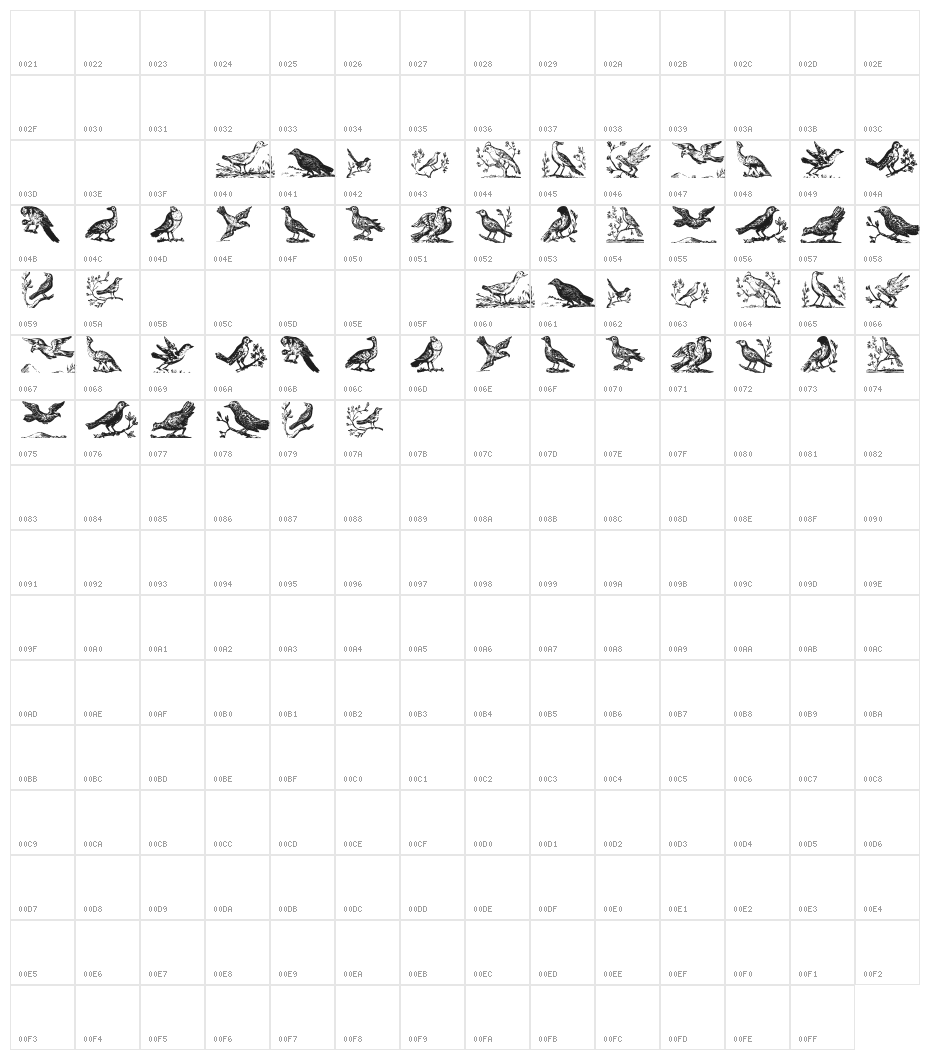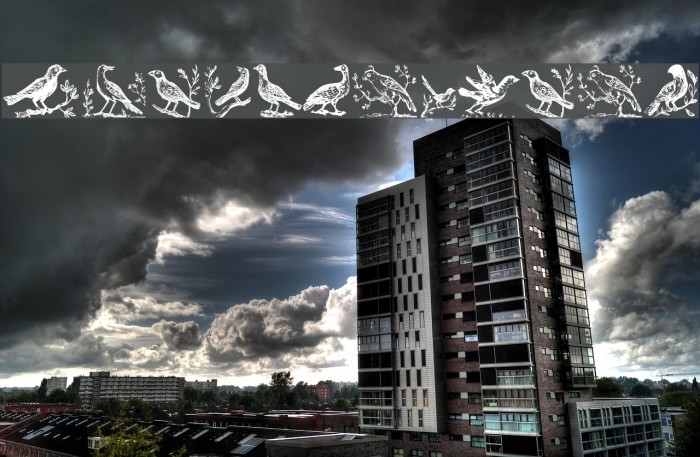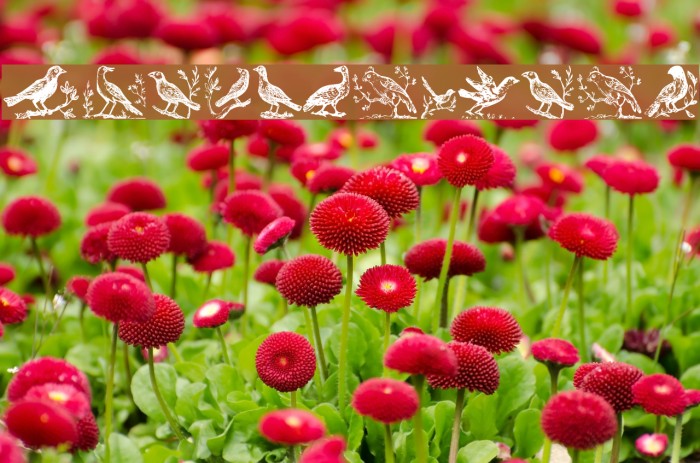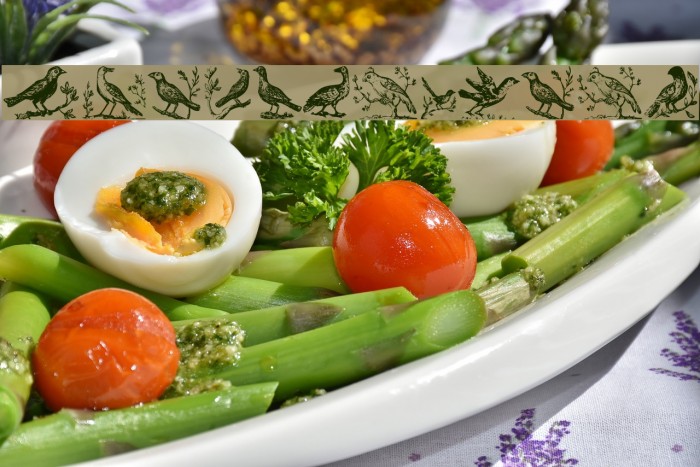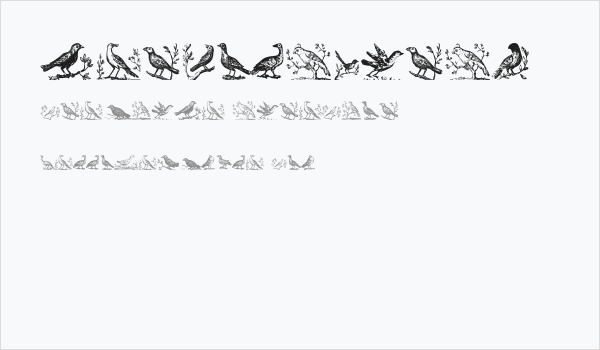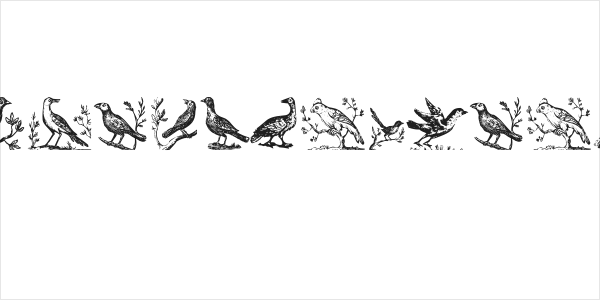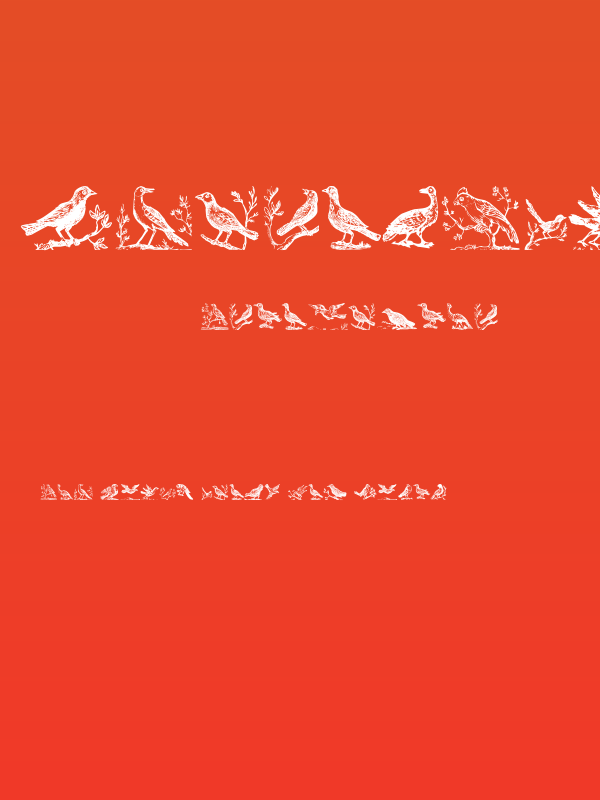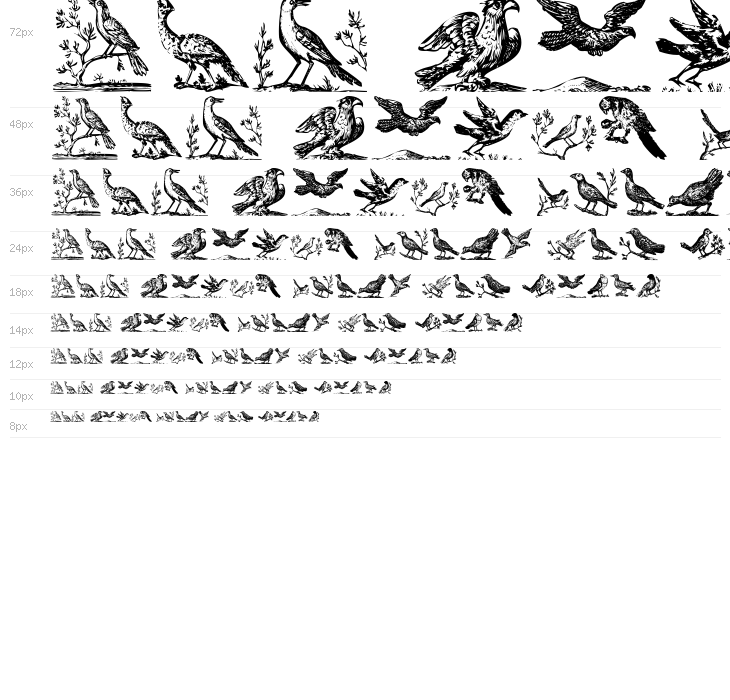
VeryOldBirds Font
VeryOldBirds Description
A decorative font featuring highly detailed, vintage-style illustrations of various birds in different poses and settings, rendered in black and white with intricate linework and shading.
| Overall Style | Vintage, Decorative |
| Use Case | Decorative elements, Borders, Themed graphics |
| Proposed Projects | Nature-themed invitations, vintage posters, scrapbooking, decorative borders, educational materials, and branding for bird-related products. |